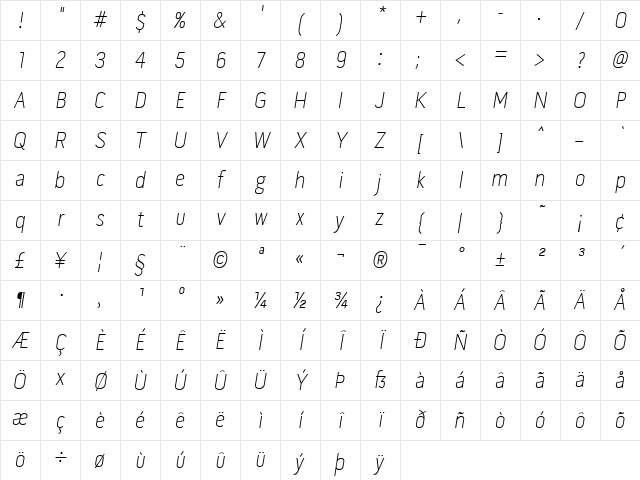
Pill Gothic 300mg Thin Obq
Designer: Christian Robertson
Design Context for Pill Gothic 300mg
Pill Gothic 300mg takes a clean, functional approach - its unadorned letterforms prioritise legibility and work reliably across screen and print environments. Its slender proportions lend an understated elegance to any composition.